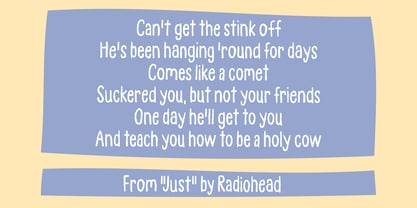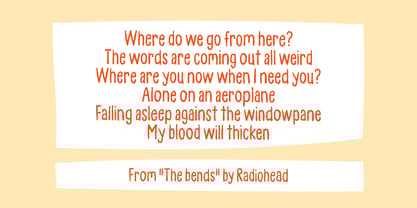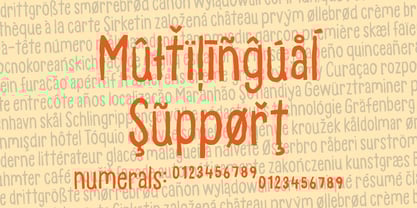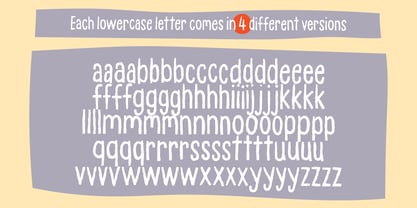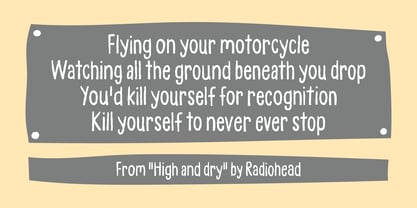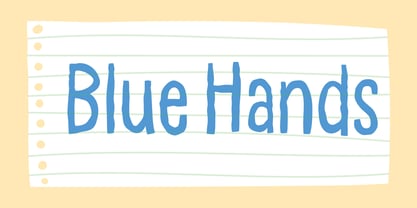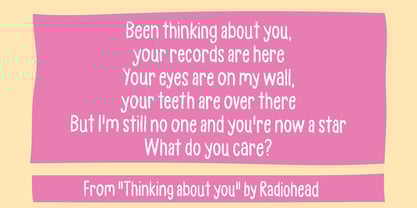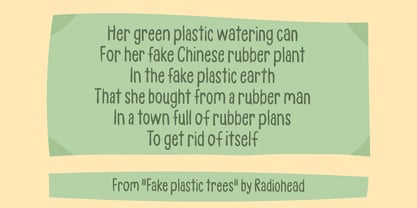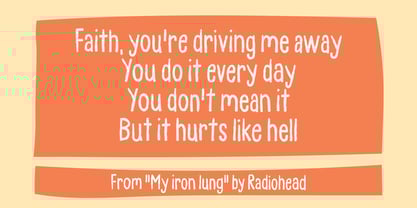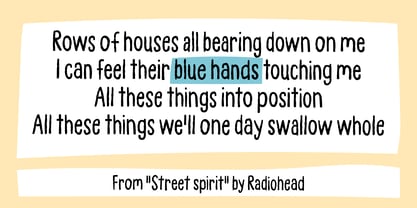
Blue Hands
by Bogstav
The Blue Hands Font Family was designed by Jakob Fischer and published by Bogstav. Blue Hands contains 2 styles and family package options. More about this family
Blue Hands was created while listening to "The Bends" by Radiohead. It was a trip down memory lane, and the creative process just happened because "The Bends" is an album that has followed me for the last 30 years - and will most likely follow me the next 30! :)
The letters are handmade with an uneven stroke and a somewhat roughness. Organic, yet super legible - and I have added 4 different versions of each lowercase letter, and they automatically cycles as you type!
Designers: Jakob Fischer
Foundry: Bogstav